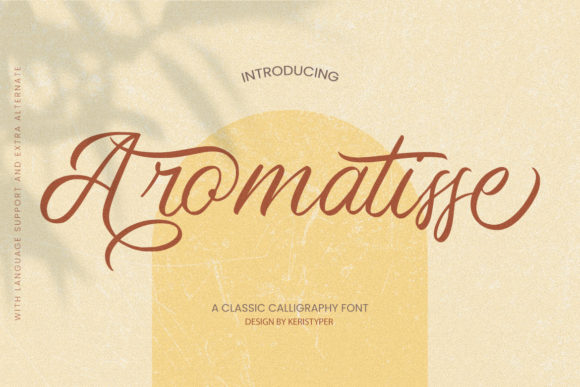
Prepare to be captivated by Aromatise, a script font that exudes elegance and charm. Inspired by the timeless art of calligraphy and the captivating allure of a bygone era, Aromatise is a masterpiece that will elevate your web designs to new heights.
With its delicate strokes and graceful curves, Aromatise is a visual symphony that dances across the screen. Its intricate flourishes and subtle nuances evoke a sense of luxury and sophistication, making it the perfect choice for brands that seek to make a lasting impression.
Whether you're crafting eye-catching web ads, designing stunning social media posts, or creating sophisticated logos, Aromatise will add a touch of timeless elegance to all your creations. Its enchanting script will captivate your audience, leaving them with a sense of admiration and desire.
Aromatise is not just a font; it's an expression of your brand's personality. It's a statement of style, a reflection of your commitment to excellence. With Aromatise, you'll have the power to create designs that evoke emotions, inspire imaginations, and leave an unforgettable mark on your audience.
Don't settle for ordinary fonts. Choose Aromatise, the script font that will transform your web designs into works of art and leave your competitors in the dust. Let the beauty of Aromatise captivate your audience and propel your brand to new heights of success.